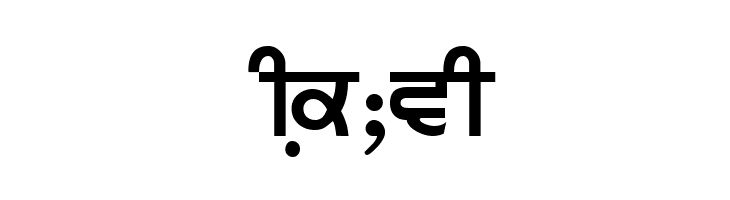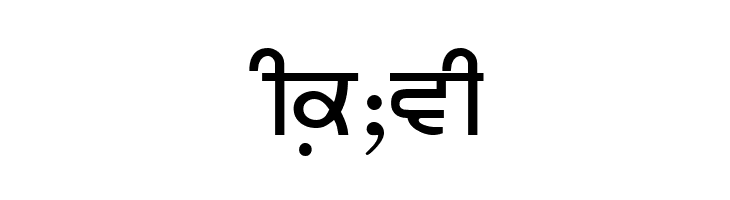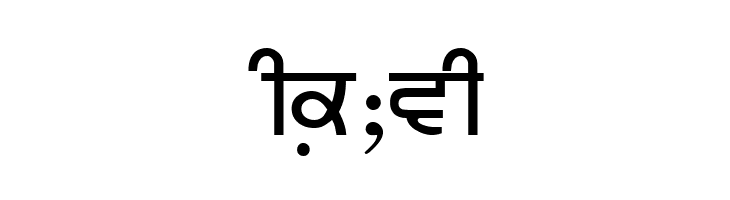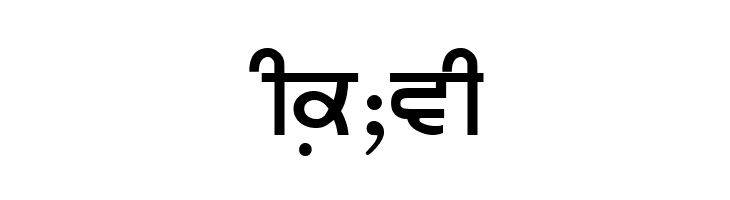
Ajitjanmeja22 Font
A modern and elegant font with clean lines and balanced structure.
Janmeja2000WB ExtraBold Font
A bold, modern font with high contrast and strong presence.
Janmeja2000J Font
A modern, clean font with consistent stroke width and geometric influences.
Janmeja2000W Normal Font
A bold, modern font with clear lines and a structured appearance.
Janmeja2002june3 Font
A bold, rounded font with clear lines and modern appeal.
Janmeja2002N Font
A modern, clean font with consistent stroke width and excellent readability.
Janmeja2002B Bold Font
A bold, modern font with thick strokes and strong readability.
Janmeja2002M Medium Font
A modern, clean font with consistent strokes and high readability.
Music2002J Font
Bold, high-contrast font with a modern yet classic style.
Music2000J Font
A bold and modern Gurmukhi script font with clear, uniform strokes.